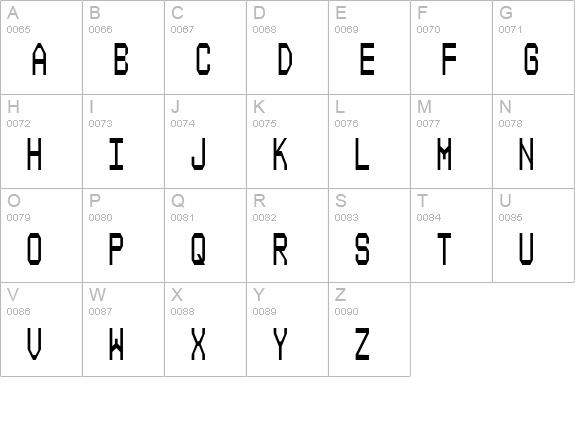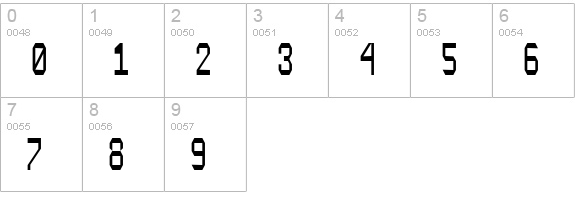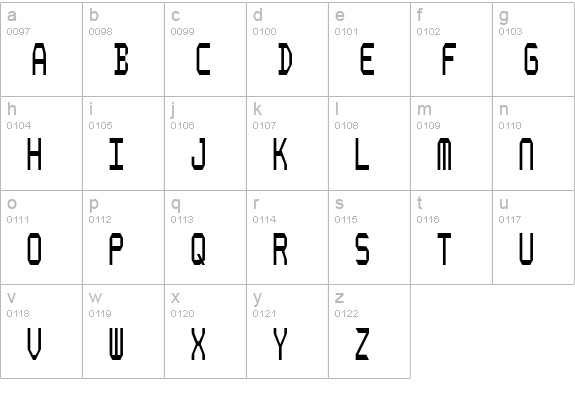
Composite Font Details
The Composite font is a versatile and stylish typeface that combines elements of modern and classic design. With its unique blend of sleek lines and elegant curves, this font is perfect for a wide range of applications, from branding and advertising to web design and print materials. Its clean and professional look makes it suitable for both personal and commercial projects. What makes the Composite font even more appealing is that it is available for free download at FontsMarket.com. This means you can easily access this high-quality font without any cost, making it a valuable addition to your font collection. Whether you are a designer, a business owner, or simply someone looking to enhance your creative projects, the Composite font is a fantastic choice that offers both style and accessibility. Download it today and elevate your designs with this exceptional typeface.